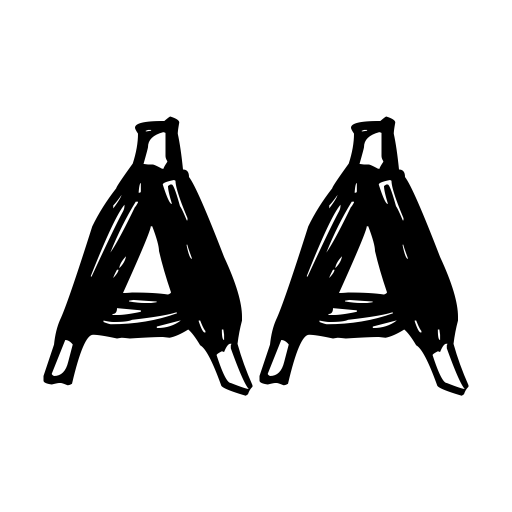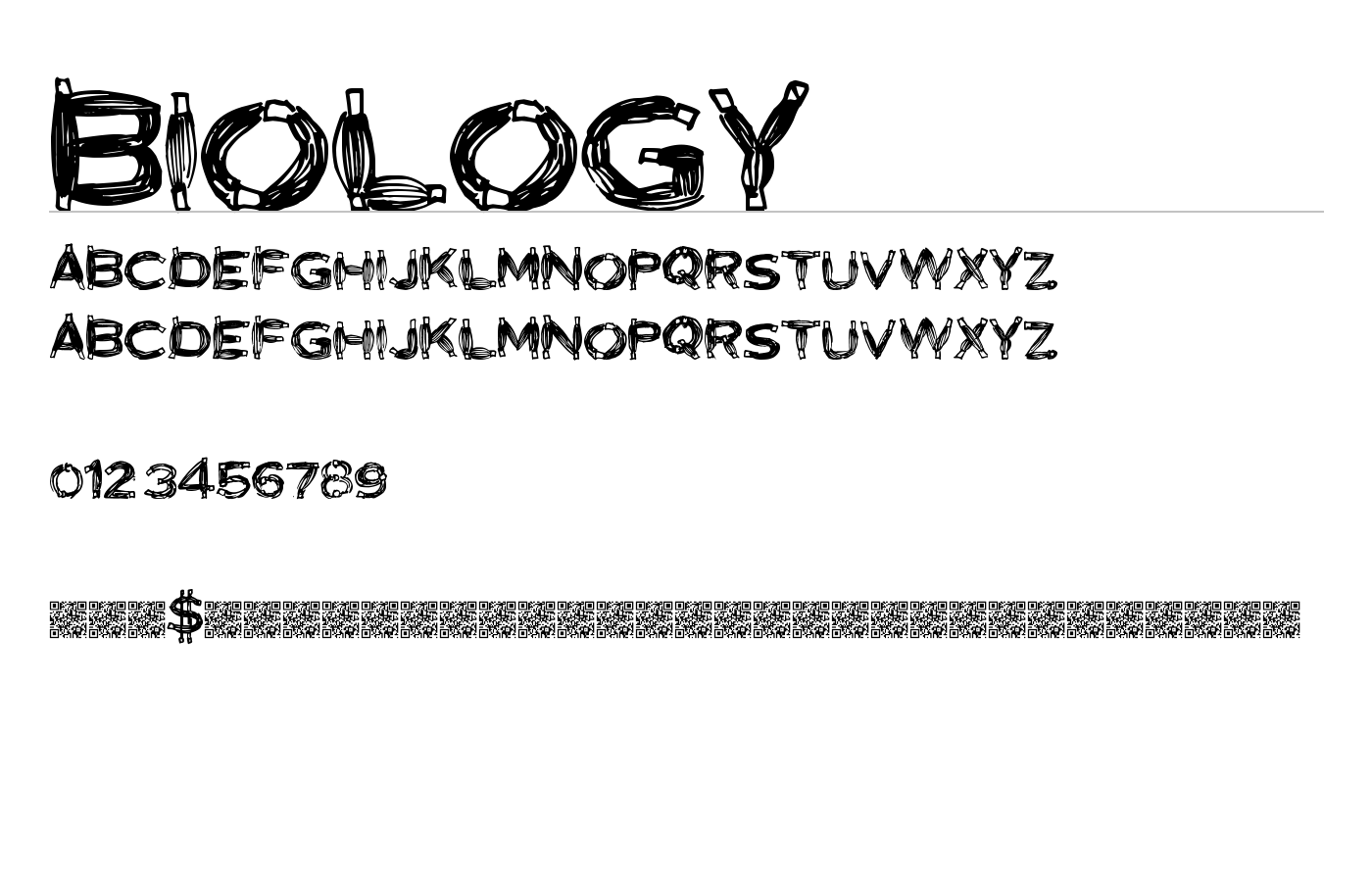
Biology Font is a playful and hand-drawn sans serif typeface with a bold, textured appearance that resembles layered strokes or natural sketches. Its irregular, organic shapes give it a casual, creative vibe perfect for science-related projects, educational materials, or fun branding that aims to feel approachable and unique. This font works best in headlines, posters, and informal contexts where a quirky, artistic touch is desired.
Biology Font
About Biology Font